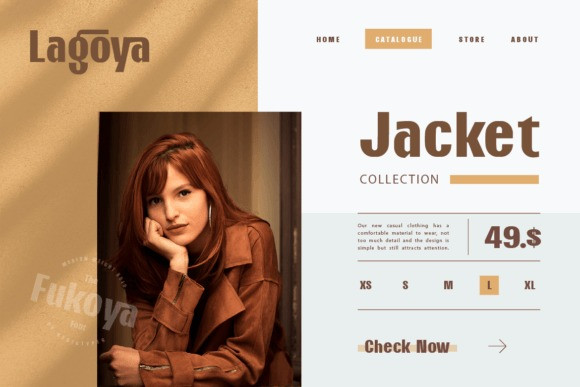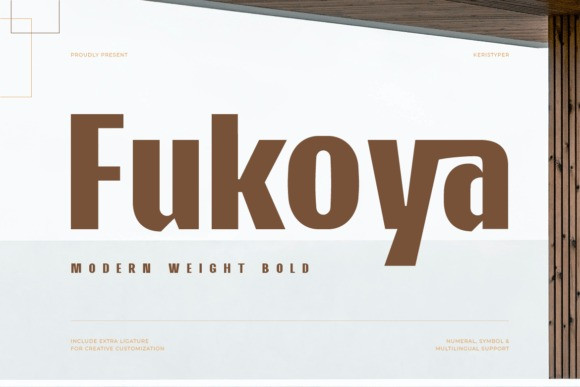
Fukoya Font
Fukoya Font is a weight-bold Sans Serif font with a soft and confident impression. This font is perfect for logo design, social media, movie titles, book titles, short text even long text letters.